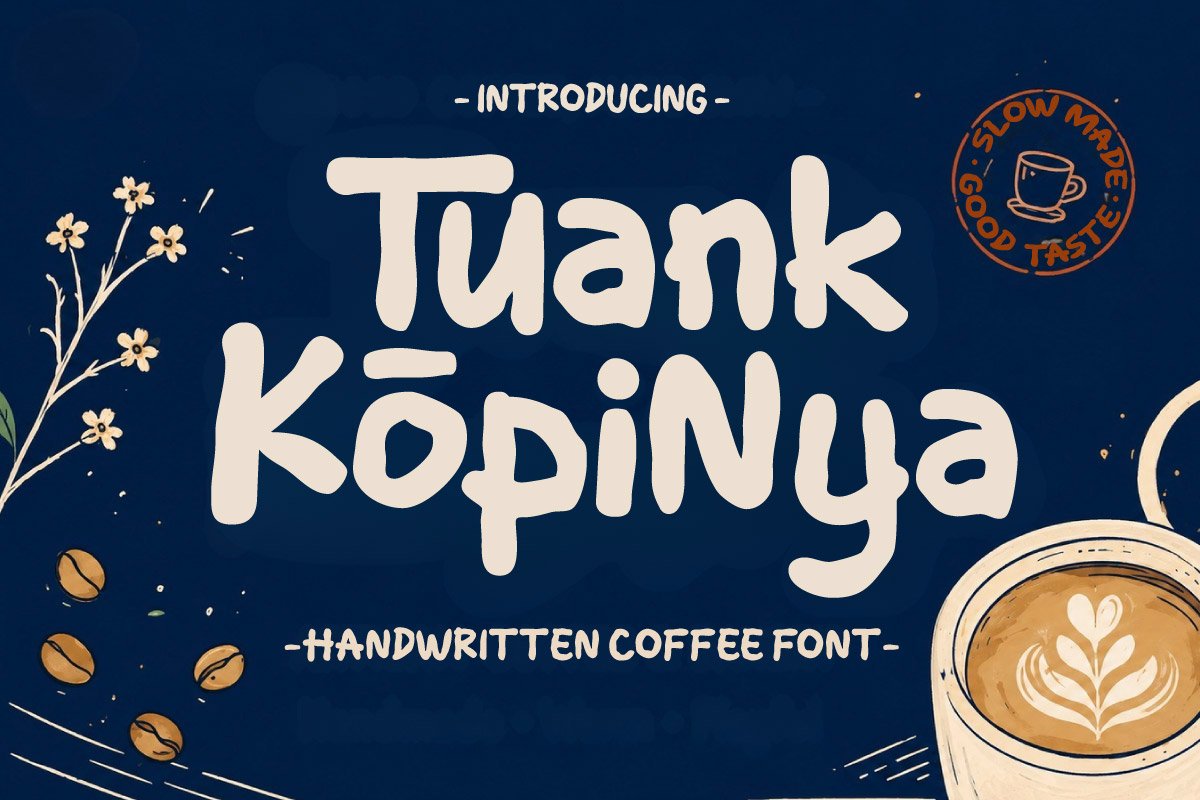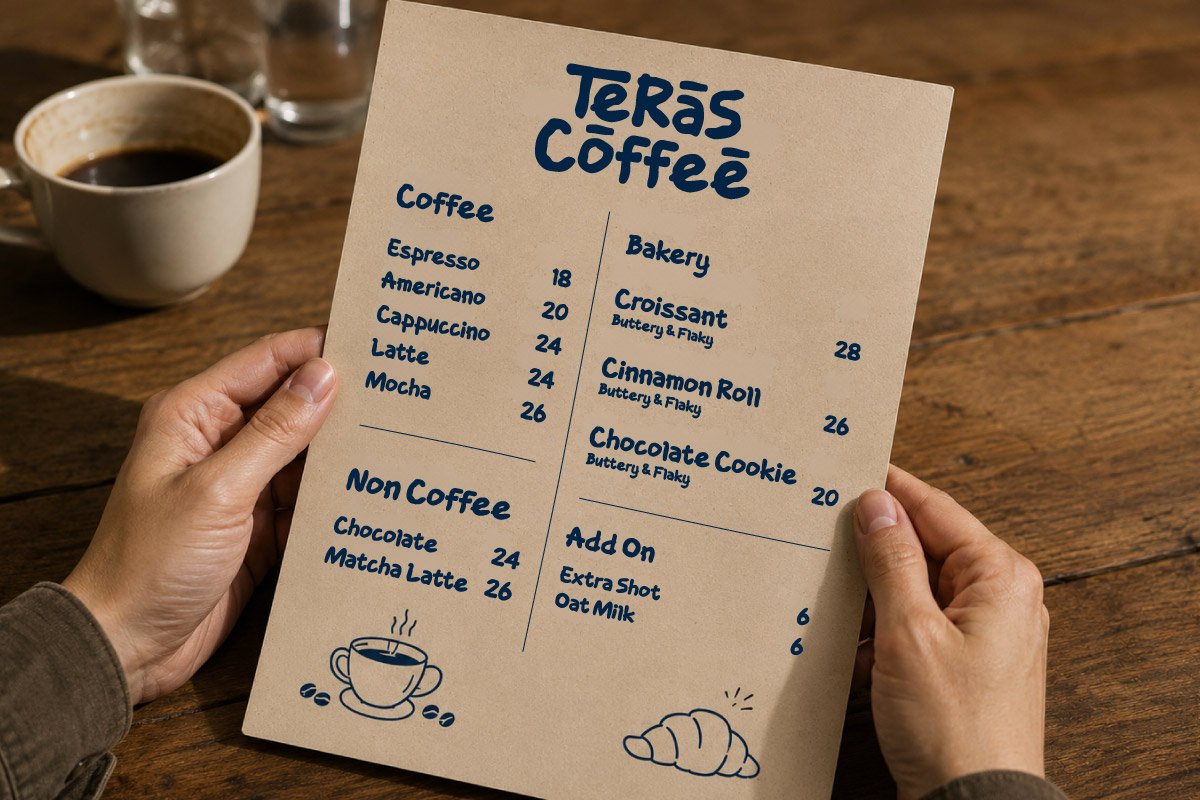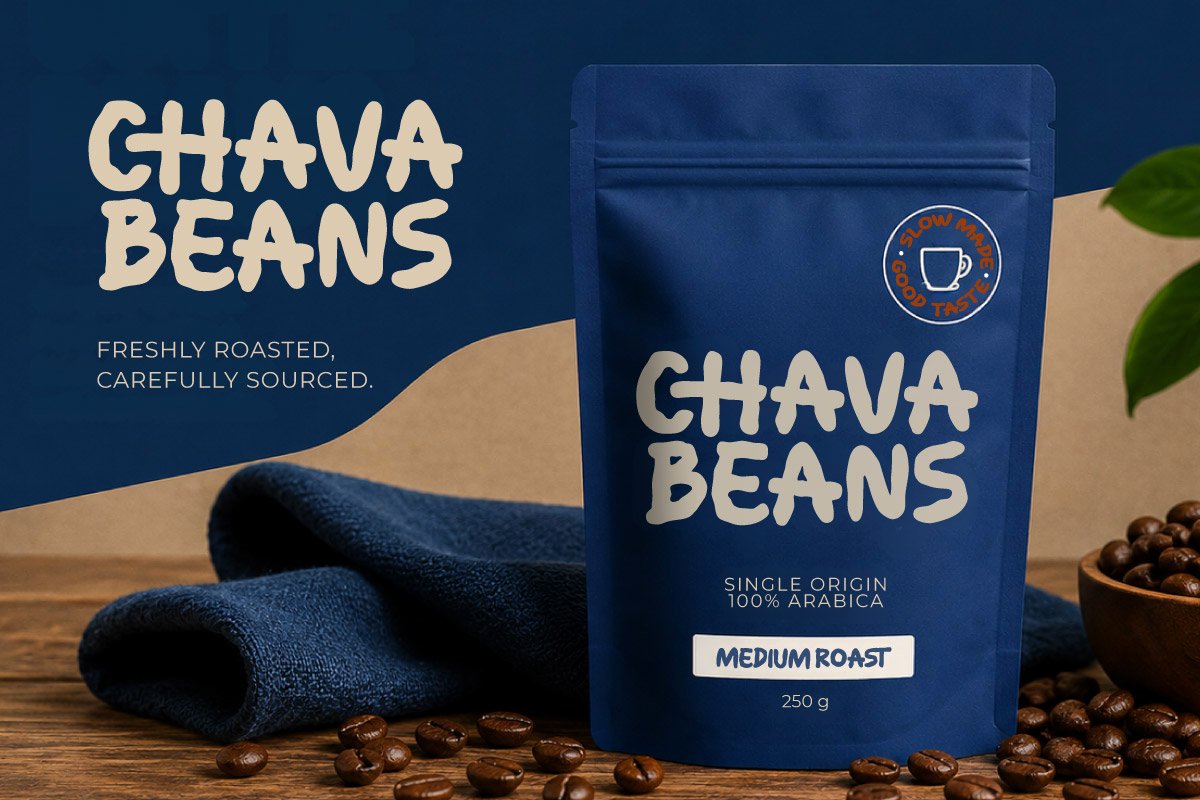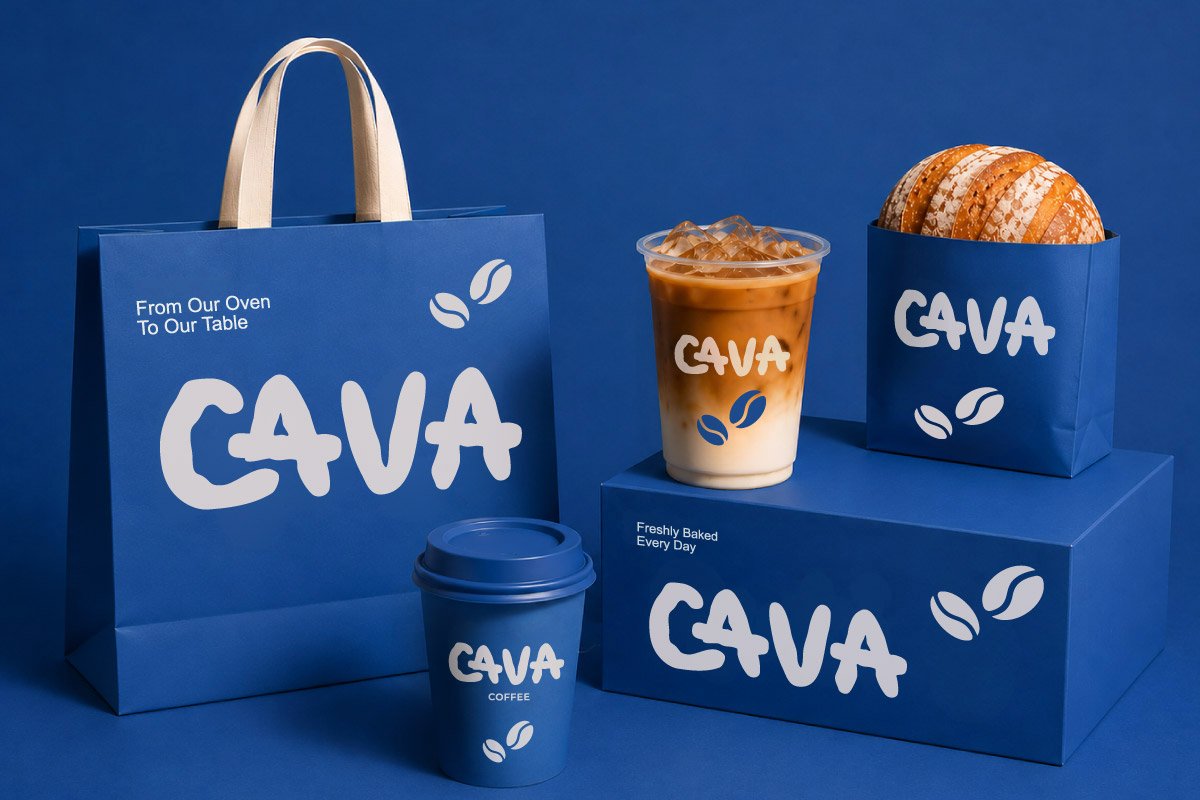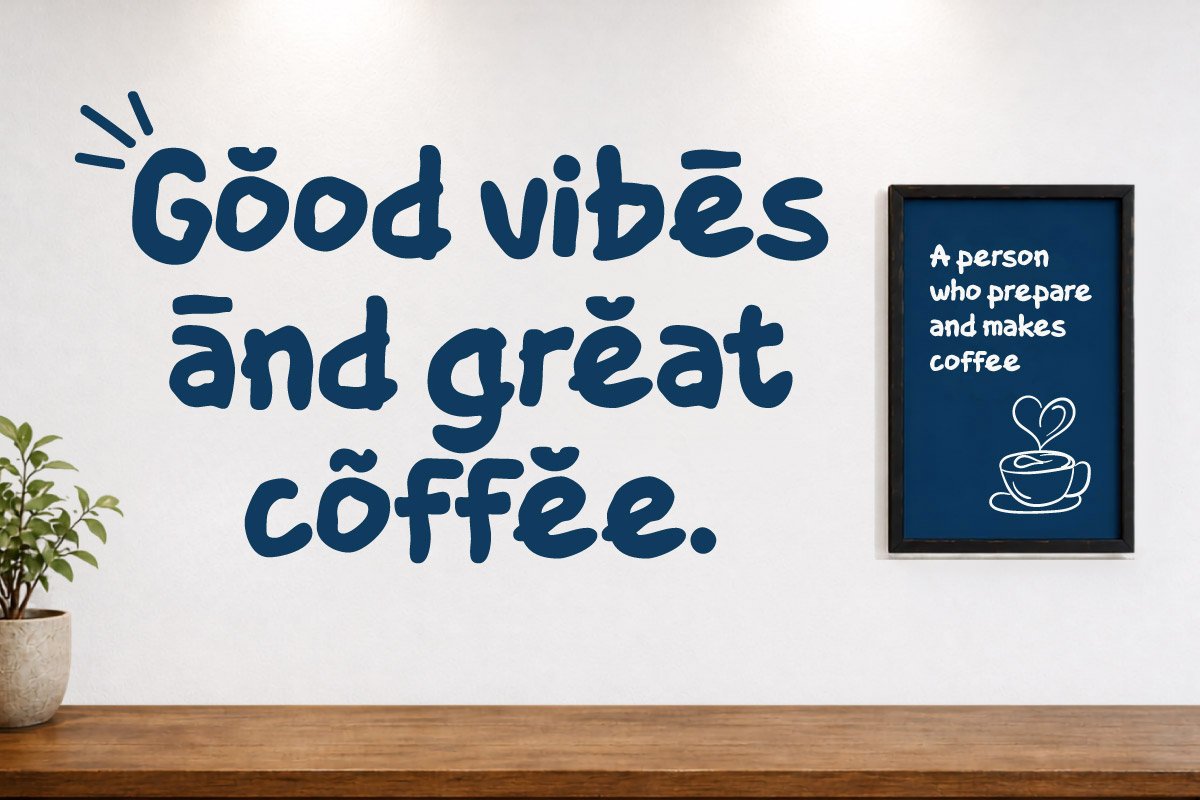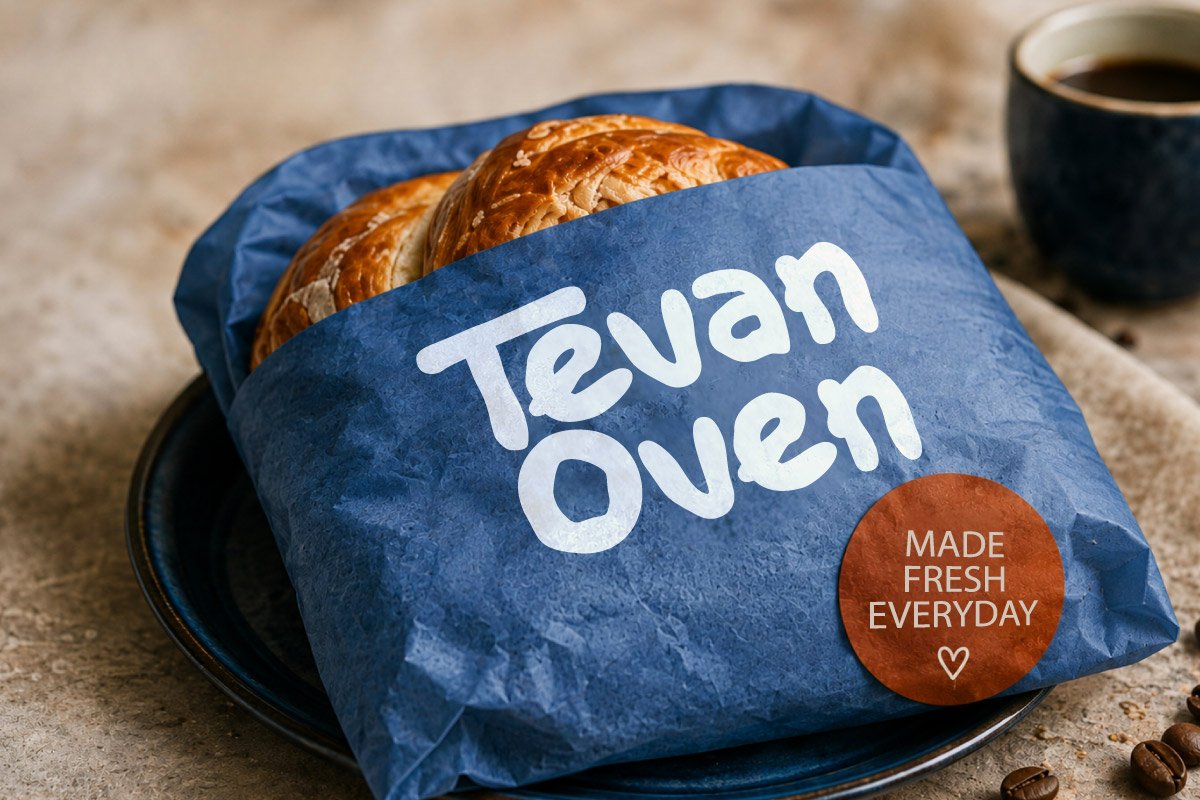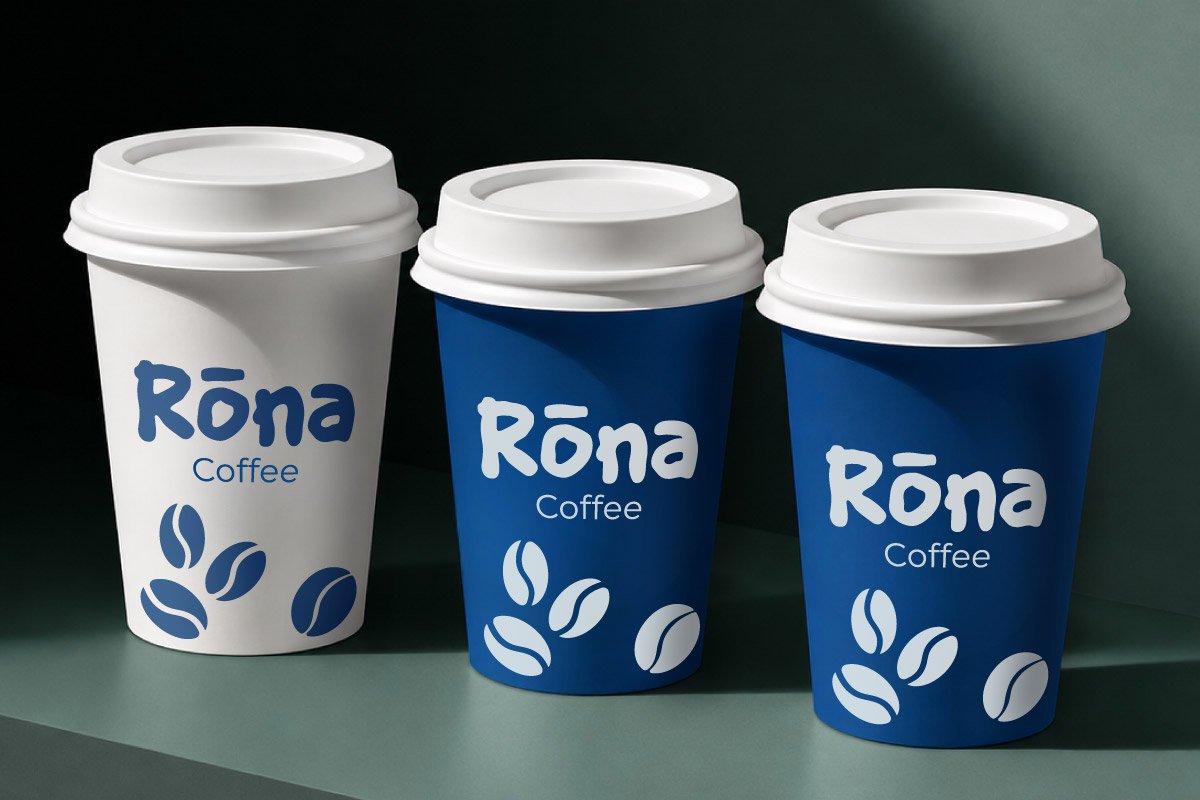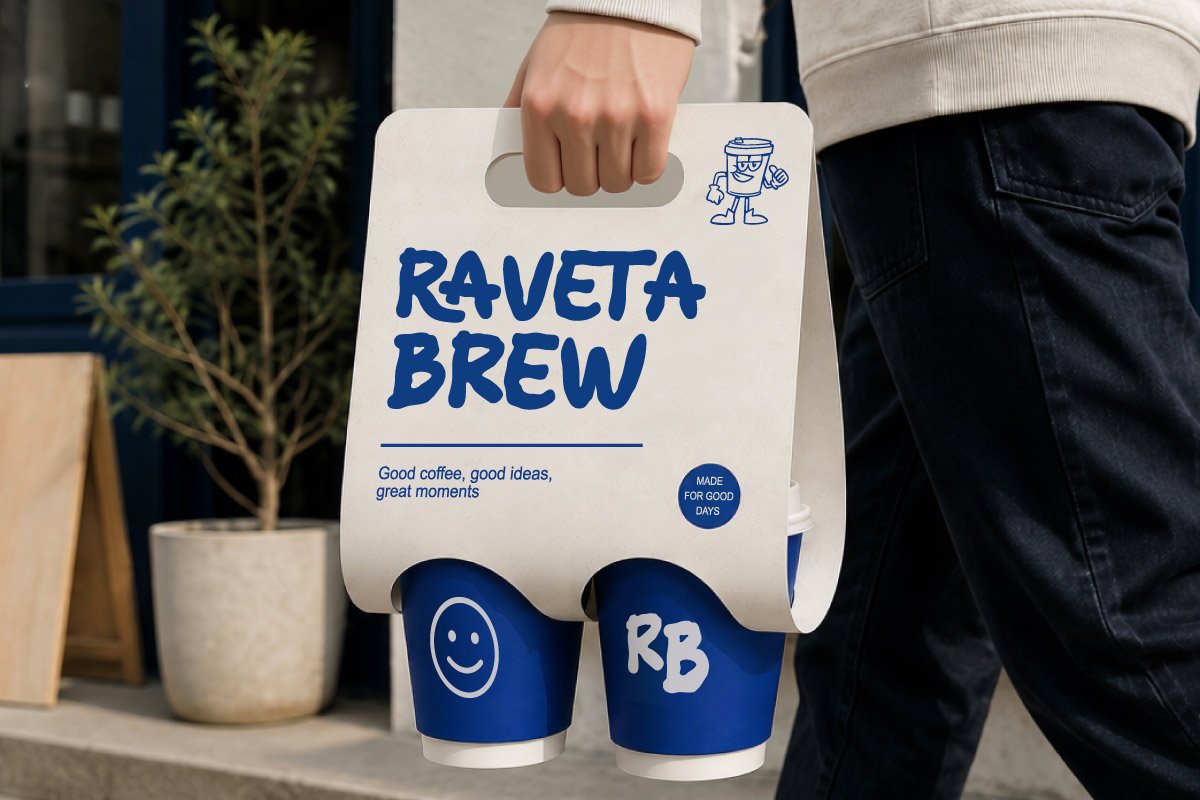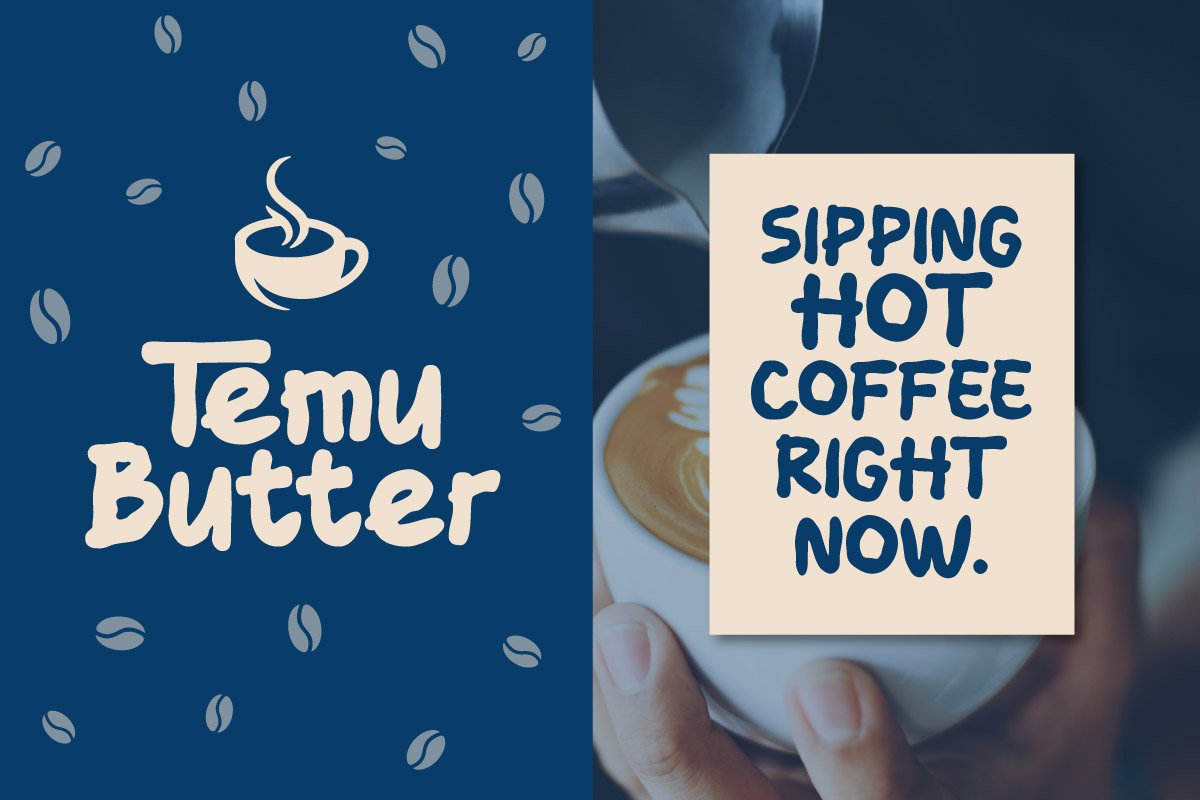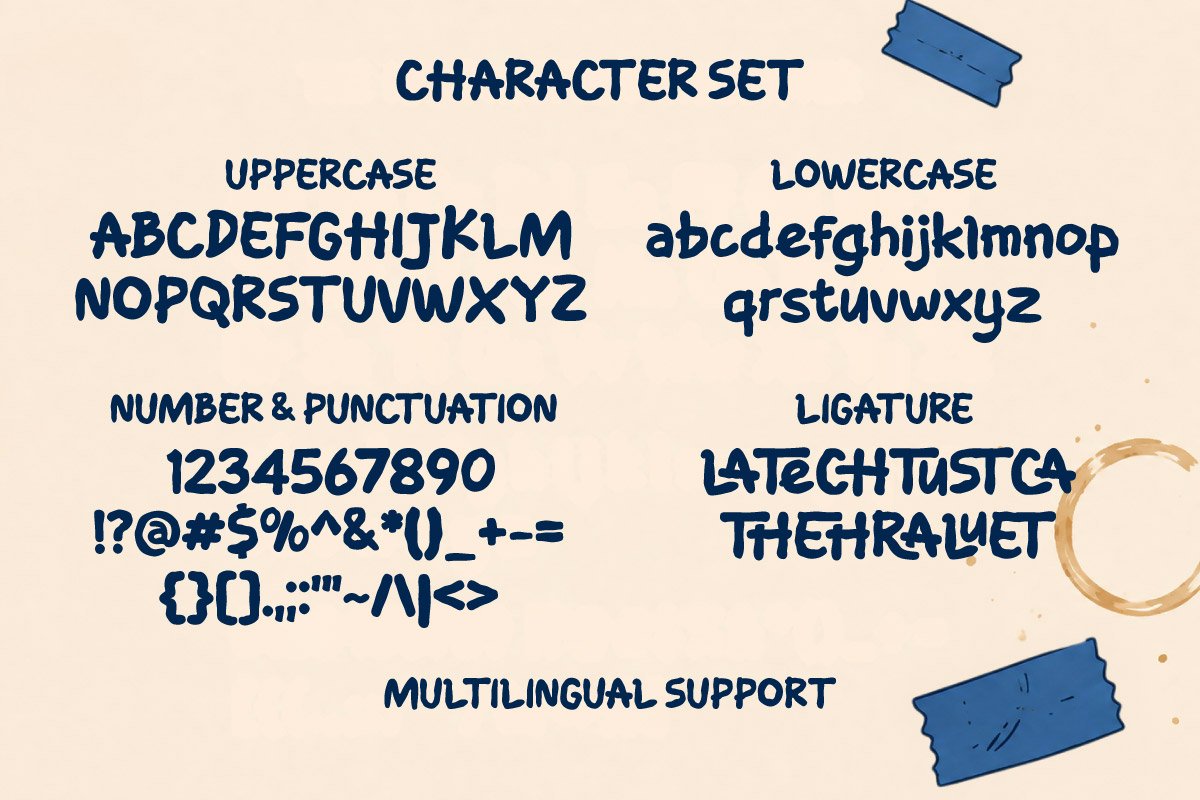
Tuank Kopinya – Coffee Handwritten font
Tuank Kopinya is a bold, rounded handwritten display font designed to bring a warm, friendly, and cozy aesthetic to your visual identity. Crafted with care, its handcrafted look delivers a distinct organic charm that instantly grabs attention.
Exceptionally versatile, this font is perfect for coffee shop branding, coffee packaging, cafe menus, and bakery labels. Furthermore, its bold yet casual letterforms work seamlessly for promotional posters, social media graphics, and clean UI design elements.
An ideal choice for local roasteries, culinary brands, and creative designers seeking a casual, welcoming, and authentic touch. Elevate your brand identity and create a memorable visual experience for your customers.